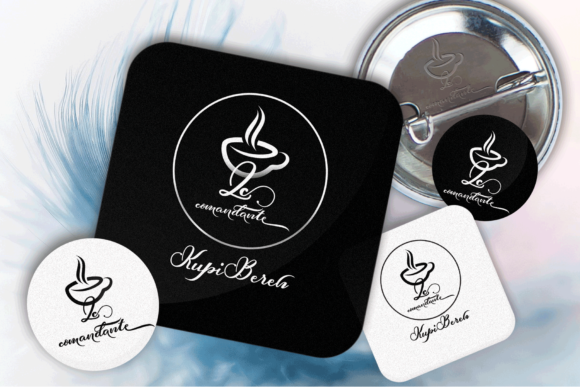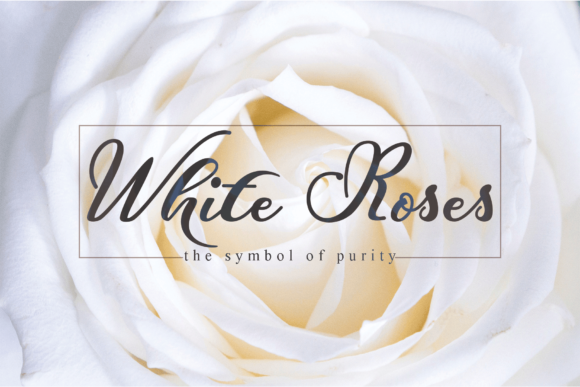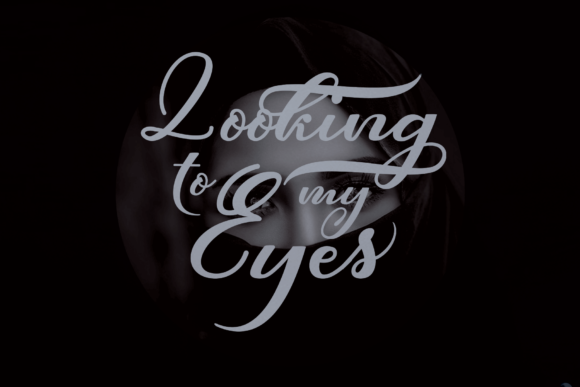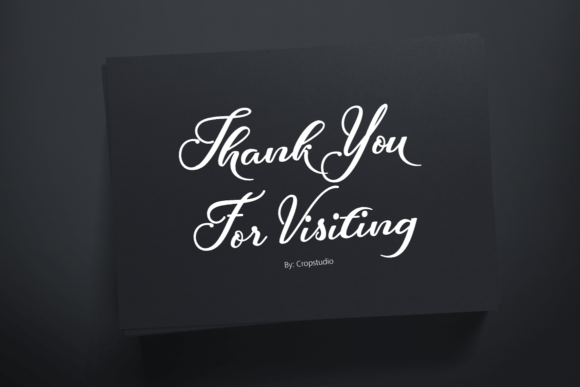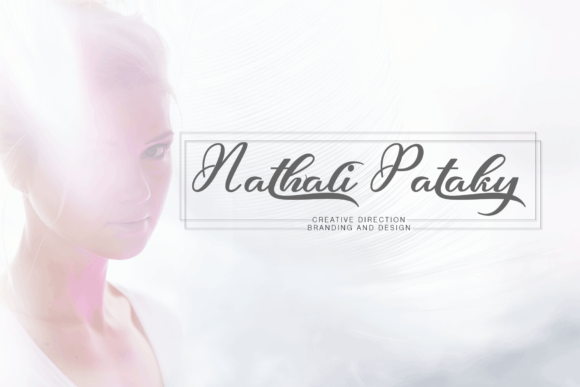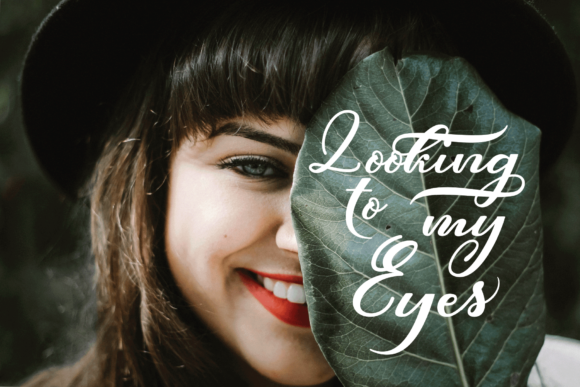
Rughetta Font
About Rughetta Font
Rughetta is a lovely modern calligraphy font, ideal for use in projects that need a gorgeous focal point. This is a great option for special event invitationals, and can give your designs an extremely elegant appeal.